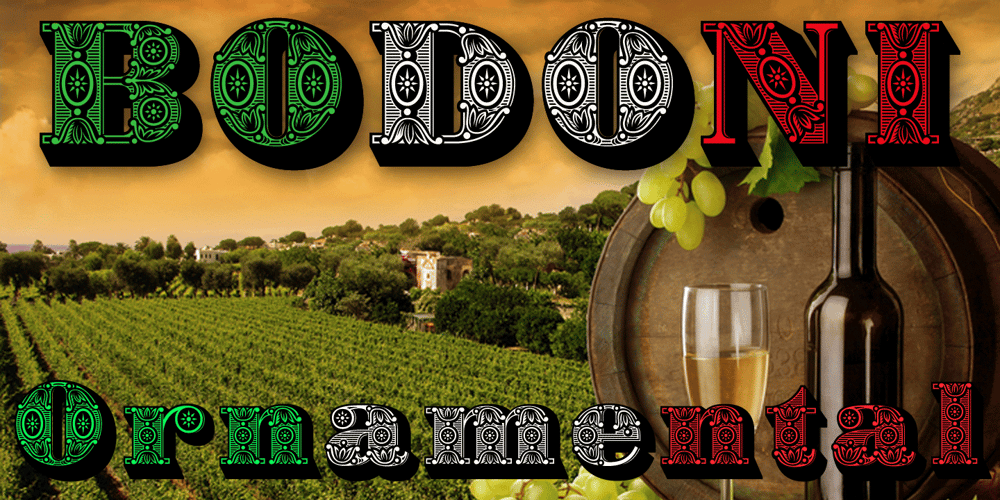
Bodoni Ornamental Font Family was designed by Michael Hagemann and published by FontMesa. Bodoni Ornamental contains 3 styles and family package options. New for 2020 Bodoni Ornamental now has two italics to choose from, one basic italic and a second which is more of a true italic with a few uppercase letters that have been stylized.Only one italic can be style linked to the regular upright version so in the second italic we’ve added Avanti to the name which means forward in Italian.When purchasing the regular upright and Avanti italic together they will install as two separate families.Bodoni Ornamental is a revival of a very old typeface based on the Poster Bodoni letter shape. Giambattista Bodoni passed away in 1813, this decorative version was created in the 1820’s or 1830’s which was the time period when many of these ultra bold decorated type faces began to appear, the original artist is currently unknown. The original version of this ornate classic was only available as a set of uppercase letters, today over one hundred eighty years later this font is now complete with a new lowercase, numbers and accented characters for Eastern, Central and Western European countries. Due to the ornate detail in Bodoni Ornamental when printing itís recommended to use a laser printer 600dpi or greater, a 1200dpi printer will give you the best results rendering the most detail at the smallest possible point size for this font. Small home user Ink Jet printers are not recommended for Bodoni Ornamental unless you set the font to a very large point size. With Ink Jet printers much of the detail in the letters will bleed together as the ink hits the page, commercial Ink Jet printers such as GiclÈe printers may give good results. When using Bodoni Ornamental for digital images including web site graphics it may help to add a one pixel stroke fill around the letters setting color to white or grey, this may help the web site images display better on some computer’s. You will need a photo editing application such as Adobe Photoshop to create your image adding the stroke fill and save as a jpg , png or gif file. I hope you enjoy this old font as much as I did making it. Note: When previewing the Bodoni Ornamental font in the Windows font preview you may notice some letters appearing lighter and some darker, this is a problem with the preview window and some ornate fonts, Bodoni Ornamental will print normal and not with mixed light and dark letters.